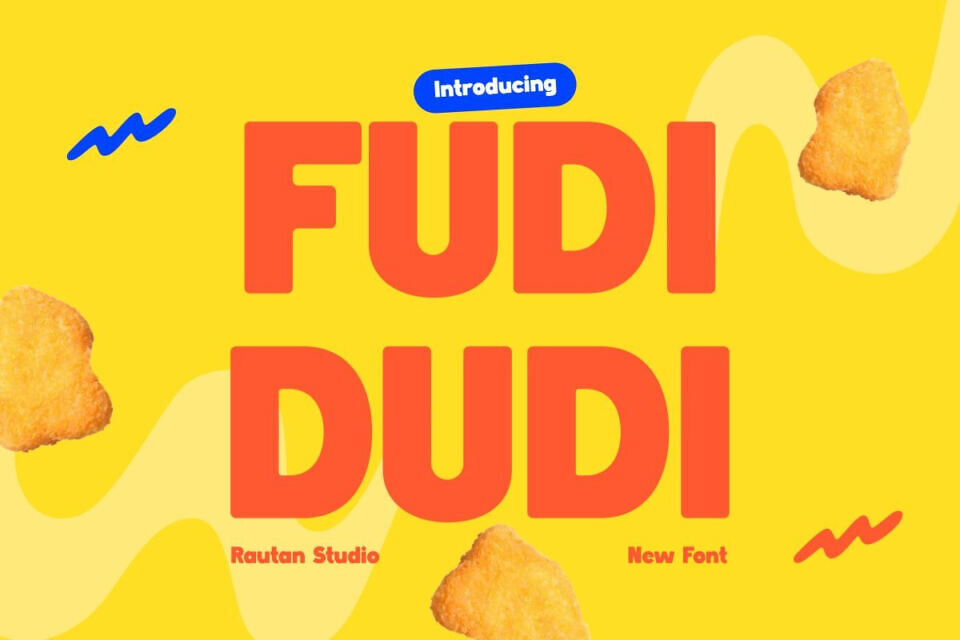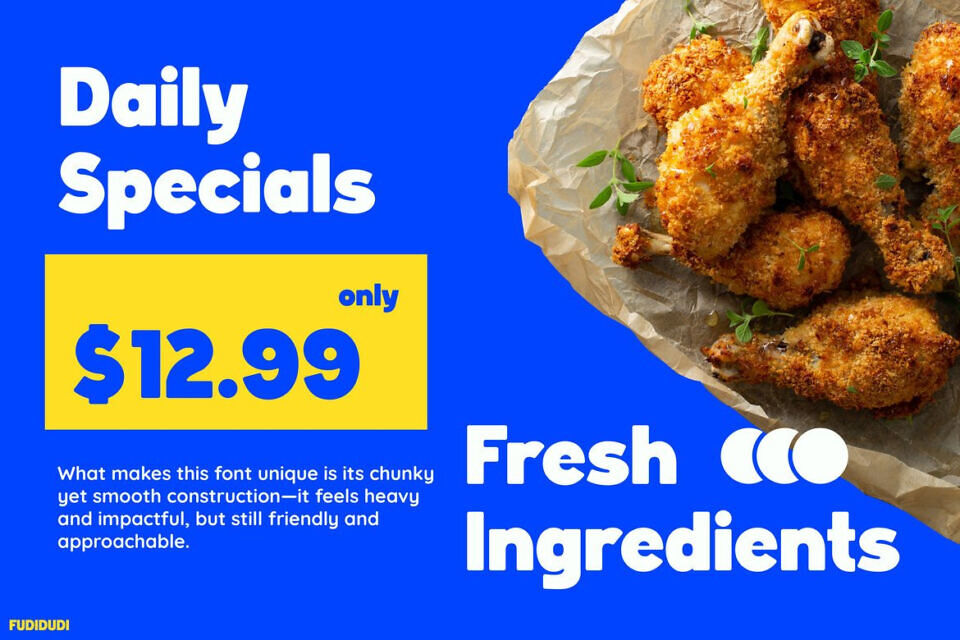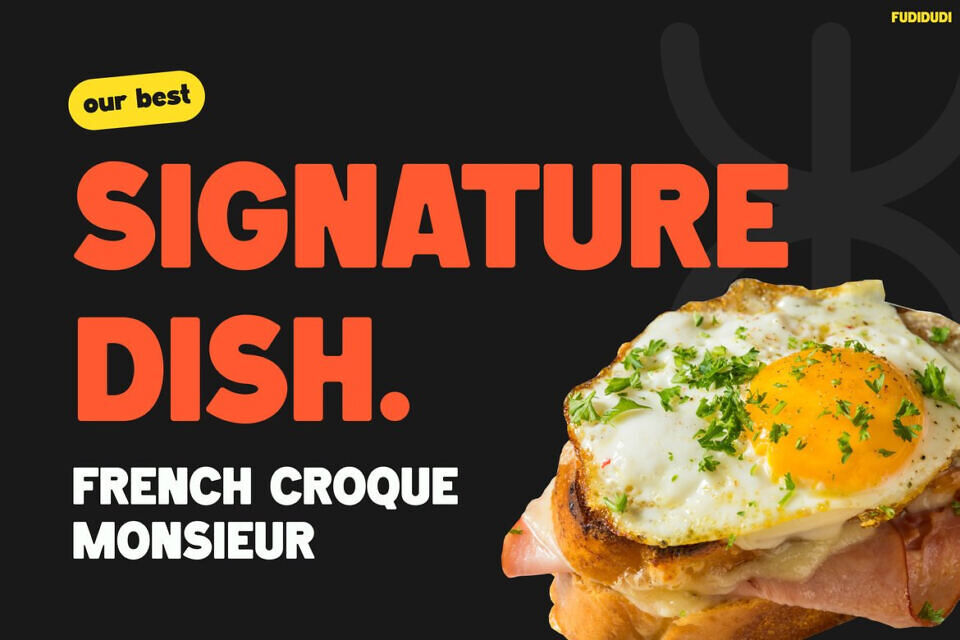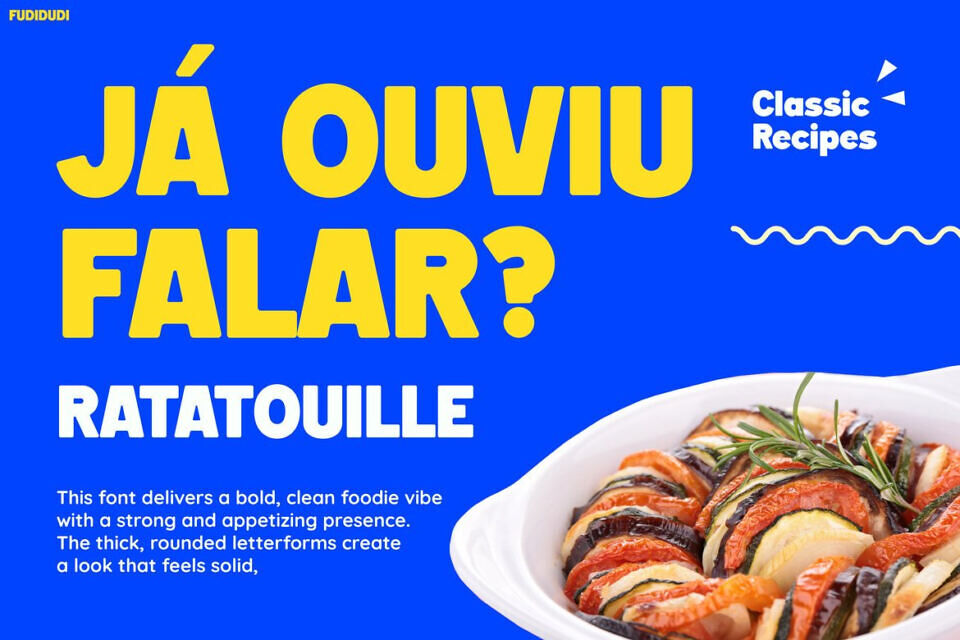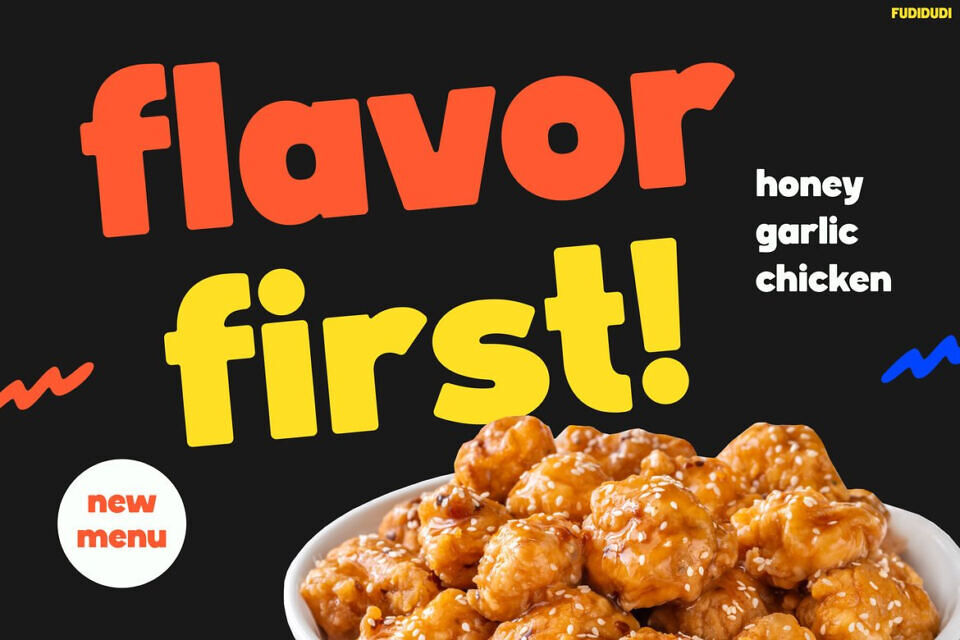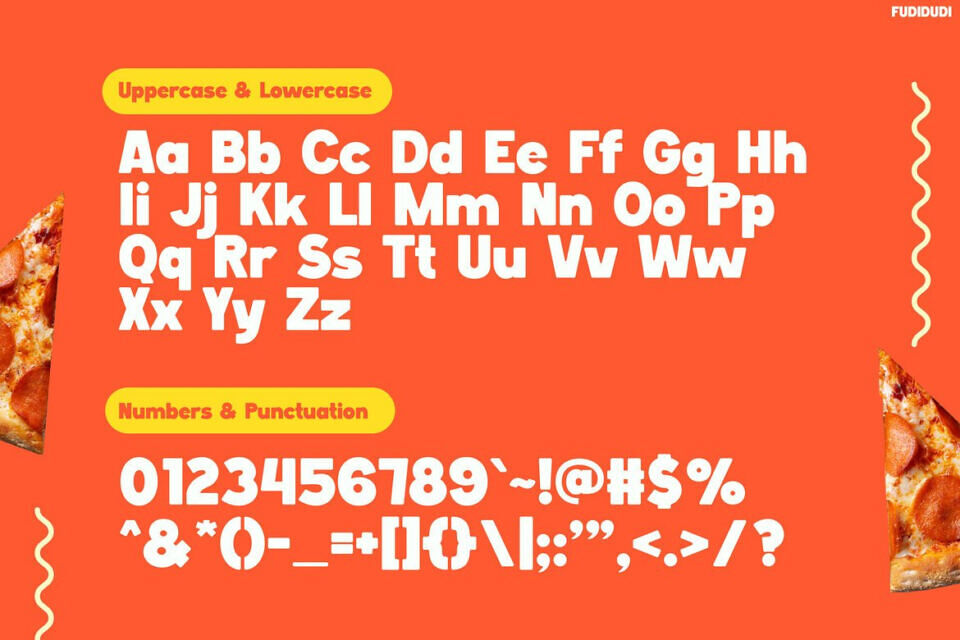
Fudidudi is a bold and vibrant typeface made to grab attention instantly. It features chunky shapes and playful curves that feel fresh and modern.
Moreover, its strong letterforms create a fun yet clean look. As a result, your designs stand out without losing clarity. In addition, the smooth edges improve readability across many layouts. Not only that, it helps headlines pop with ease. With support for 67 languages, this font also reaches a wide global audience.